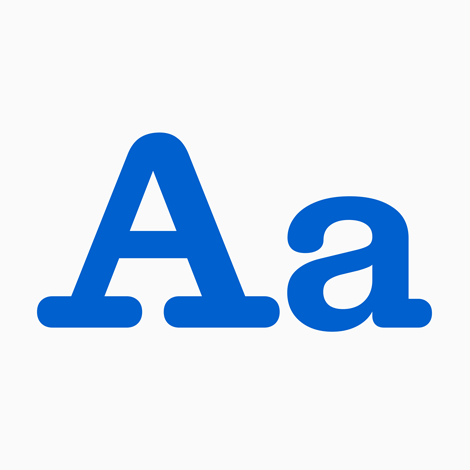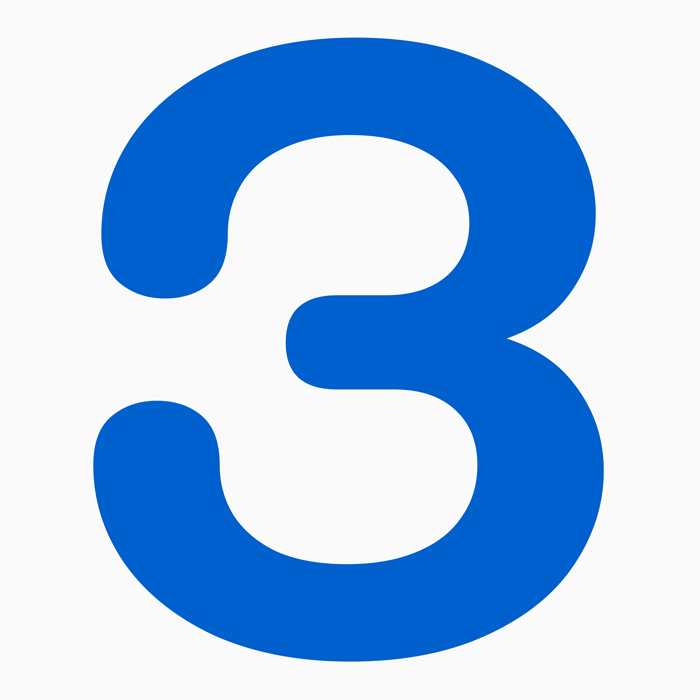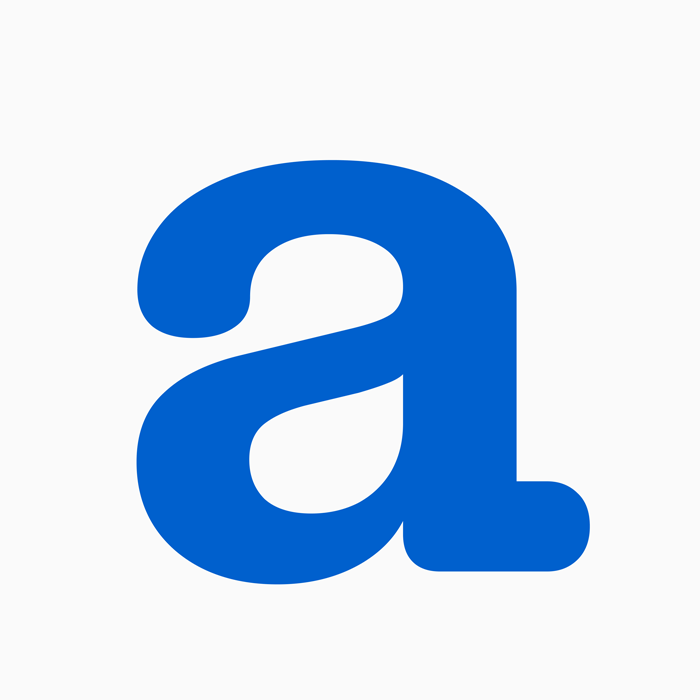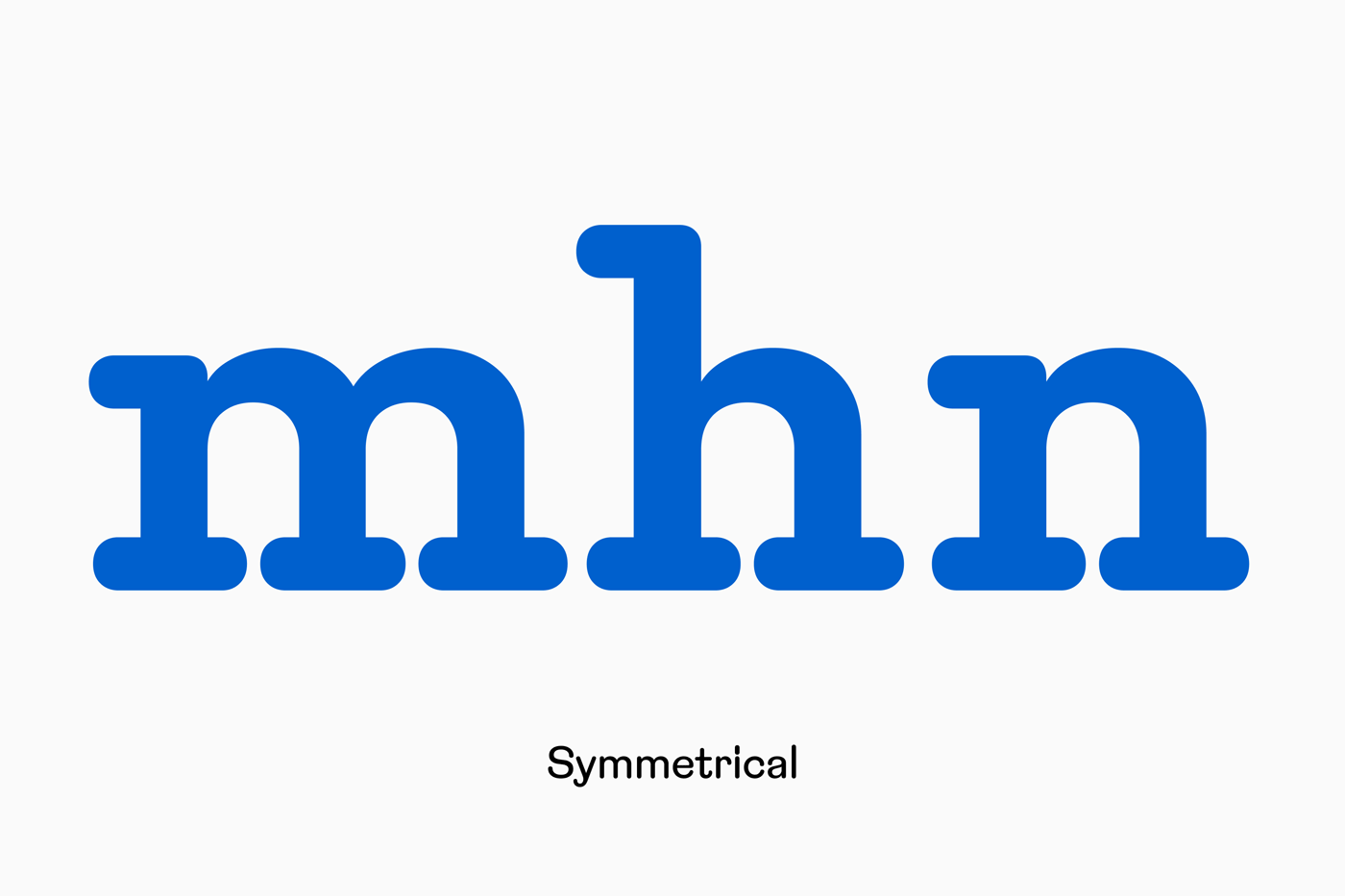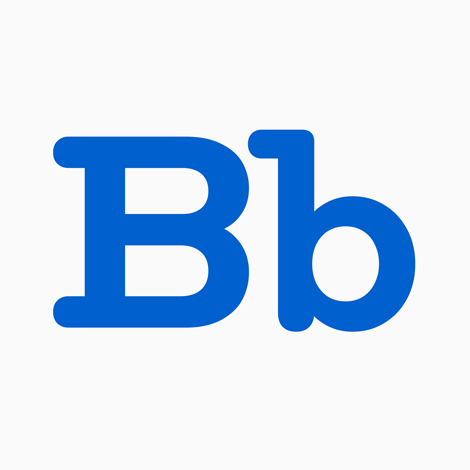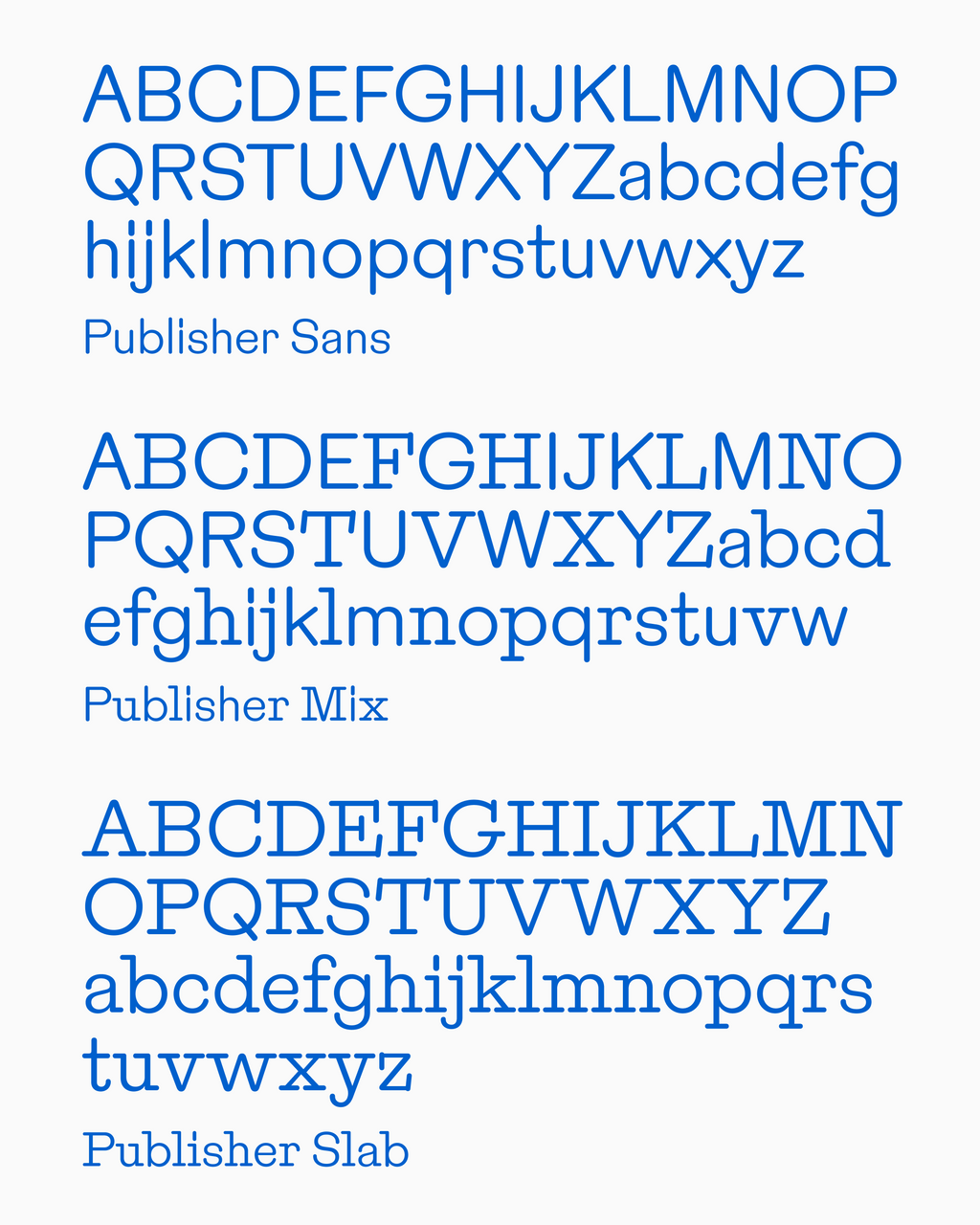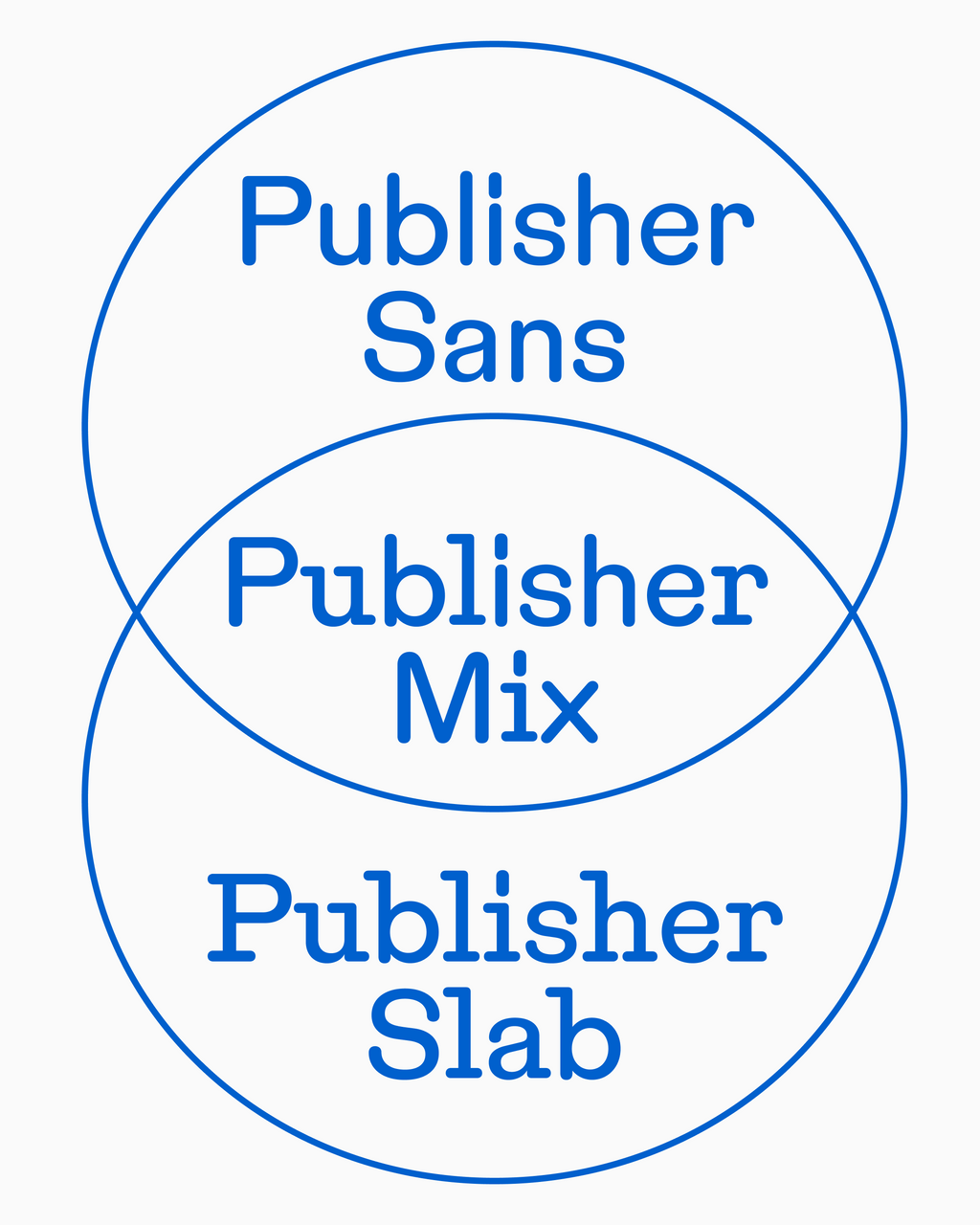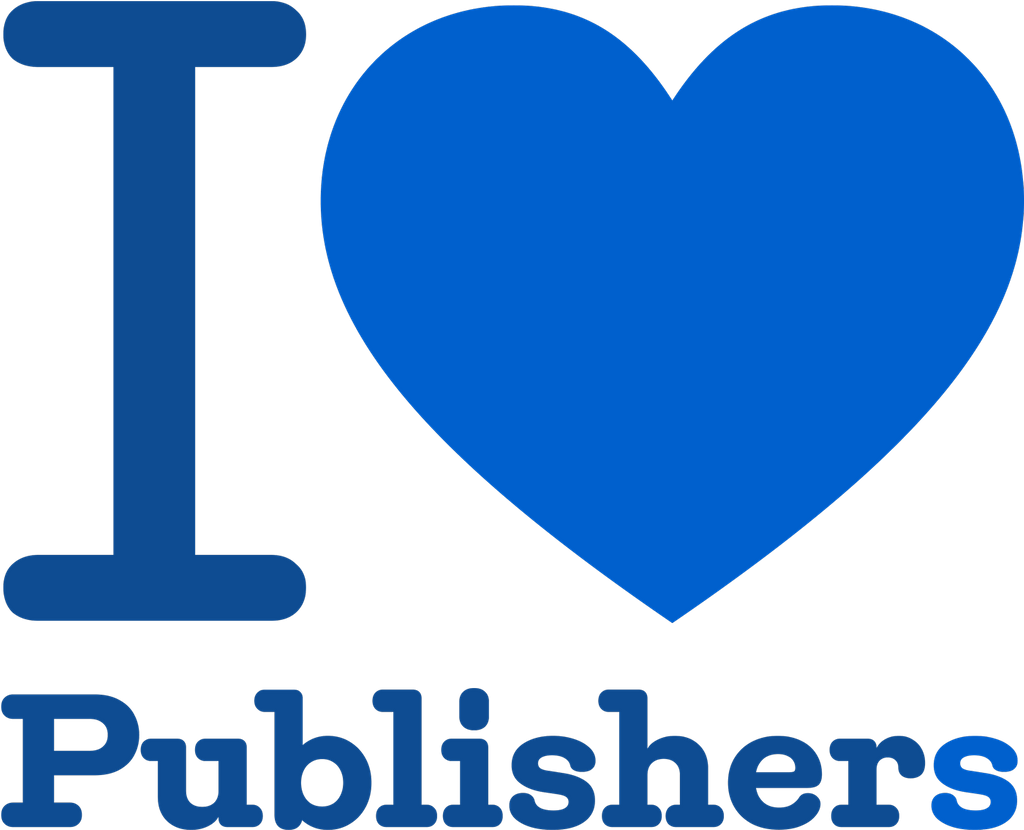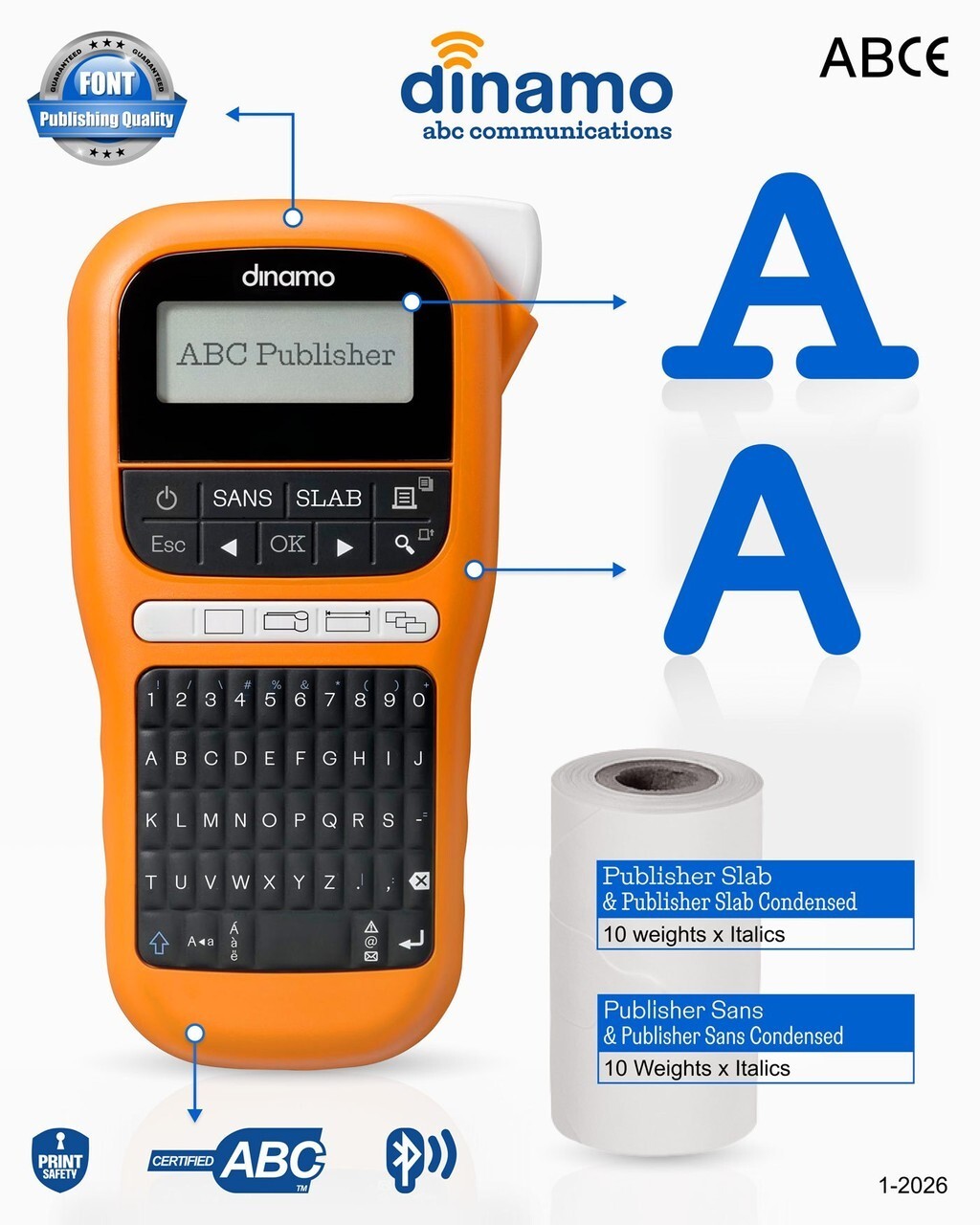
Publisher, Published!
ABC PUBLISHER, PUBLISHED
Publisher is a typewriter-inspired design, re-upholstered for modern print and screen use. While embracing the genre’s mechanical honesty and authorial voice, Publisher’s letters are proportionally spaced to ensure beautiful moments of long, untiring reading.
MECHANICAL WARMTH
The typewriter genre traces its roots to early monospaced designs such as Courier, defined by mechanical constraints and functional clarity. Later came proportional interpretations like ITC American Typewriter, which introduced a warmer, more expressive tone.
ABC Publisher continues this lineage with rounded, smooth edges that soften the mechanical structure and introduce a level of warmth nothing short of the comfort of true friendship.
FAMILY TREE
Next to the classic typewriter-style Slab, we have the clean and elegant Sans companion. And between those, we have the playful Mix, a hybrid style that combines the best of both worlds.
All three subfamilies share the same underlying skeleton and design DNA, which means that you can mix and match them effortlessly across your work without tumbling into design-chaos.
ALTERNATES
With this one, we practiced maximum restraint (restraintmaxxing), including only four alternate characters. There’s a flamboyant double-storey g, a funky version of the a with a tail, a flat-top 3, and asymmetrical serifs for m, n and h.
FLEXIBILITY
Spanning a broad design space from Condensed to Normal, across six weights with corresponding italics, the family offers exceptional flexibility for various types of text (body, compact, headline, etc), a capability rarely found in typewriter-inspired designs.
Everything is packaged into pocket-size variable fonts, allowing for fine-grained control of weights and widths.